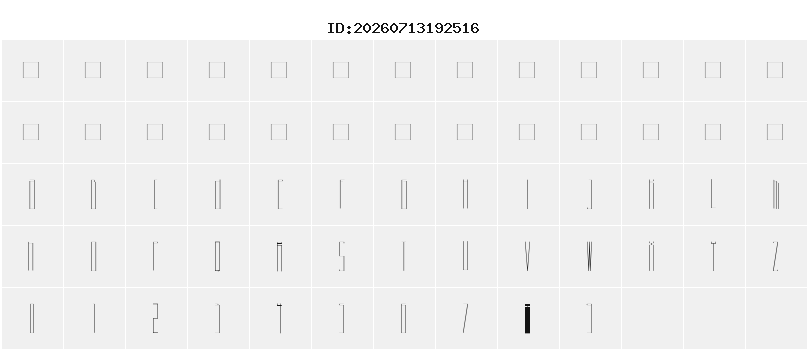
BABBIO-ALTO Preview
• Font Name: BABBIO-ALTO
• Font Style: Roman
• Full Font Name: BABBIO-ALTO
About BABBIO-ALTO.ttf
BABBIO-ALTO.ttf is a modern, elegant sans-serif font designed for ultimate readability and visual harmony. Perfect for branding, headlines, web design, and print materials.